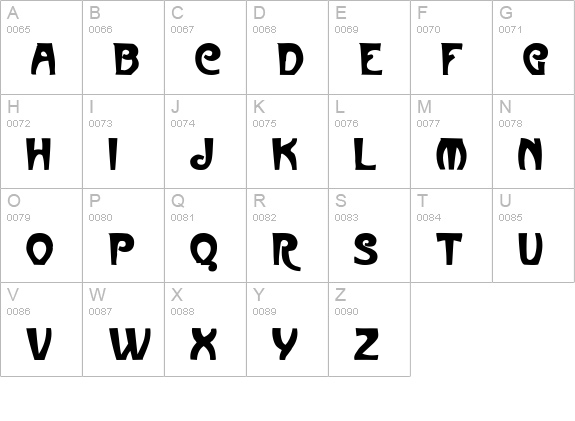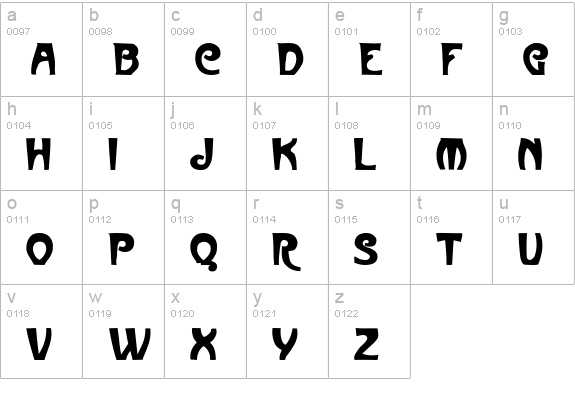
Metropolitain Font Details
Metropolitain font is a stunning display typeface that exudes sophistication and modernity. With its sleek lines and elegant curves, this font is perfect for creating eye-catching headlines, titles, and logos that demand attention. The clean, minimalist design of Metropolitain font gives it a timeless appeal that is both versatile and stylish. What makes Metropolitain font even more appealing is that it is available for free download at FontsMarket.com. This means you can easily access this beautiful font and use it in your design projects without any cost. Whether you are designing a website, creating marketing materials, or working on a branding project, Metropolitain font is sure to elevate your designs and make them stand out. Don't miss out on the opportunity to add Metropolitain font to your font collection today. Download it for free at FontsMarket.com and take your designs to the next level with this elegant and modern typeface.